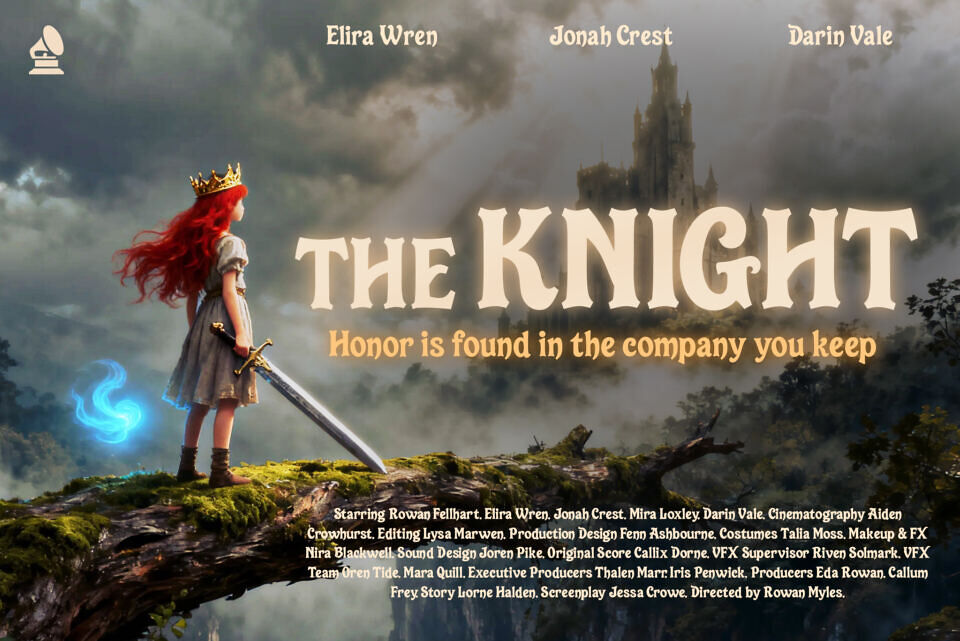
Wicked Glint is a captivating fairytale display font inspired by enchanted forests, glowing spellbooks, and mystical adventures. Designed with bold, whimsical serifs and subtly irregular strokes, this font brings a sense of magic and wonder to every letter. Its glowing, ethereal presence makes it ideal for fantasy movie posters, fairytale book covers, children’s illustrations, game titles, and any creative project that needs a touch of enchantment.
With whimsical curves and proportions, Wicked Glint evokes classic fantasy lettering. Its handcrafted feel shines in large displays, balancing readability with magical ambiance. Perfect for mystical branding, fantasy events, or illustrations, this font infuses your work with enchanting storytelling energy.